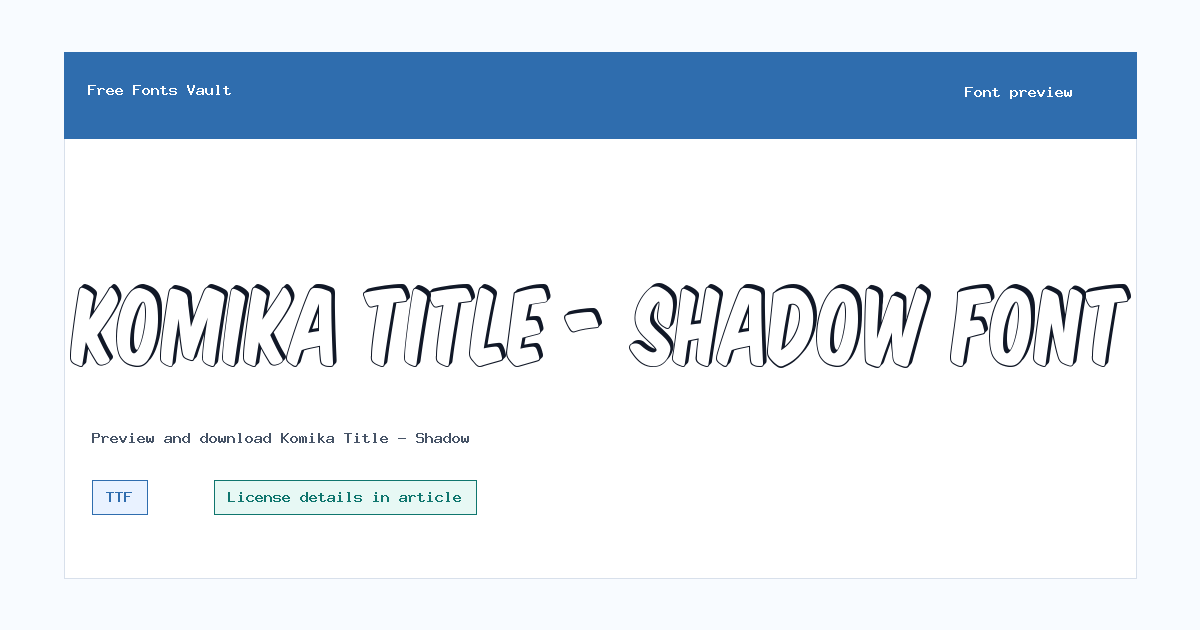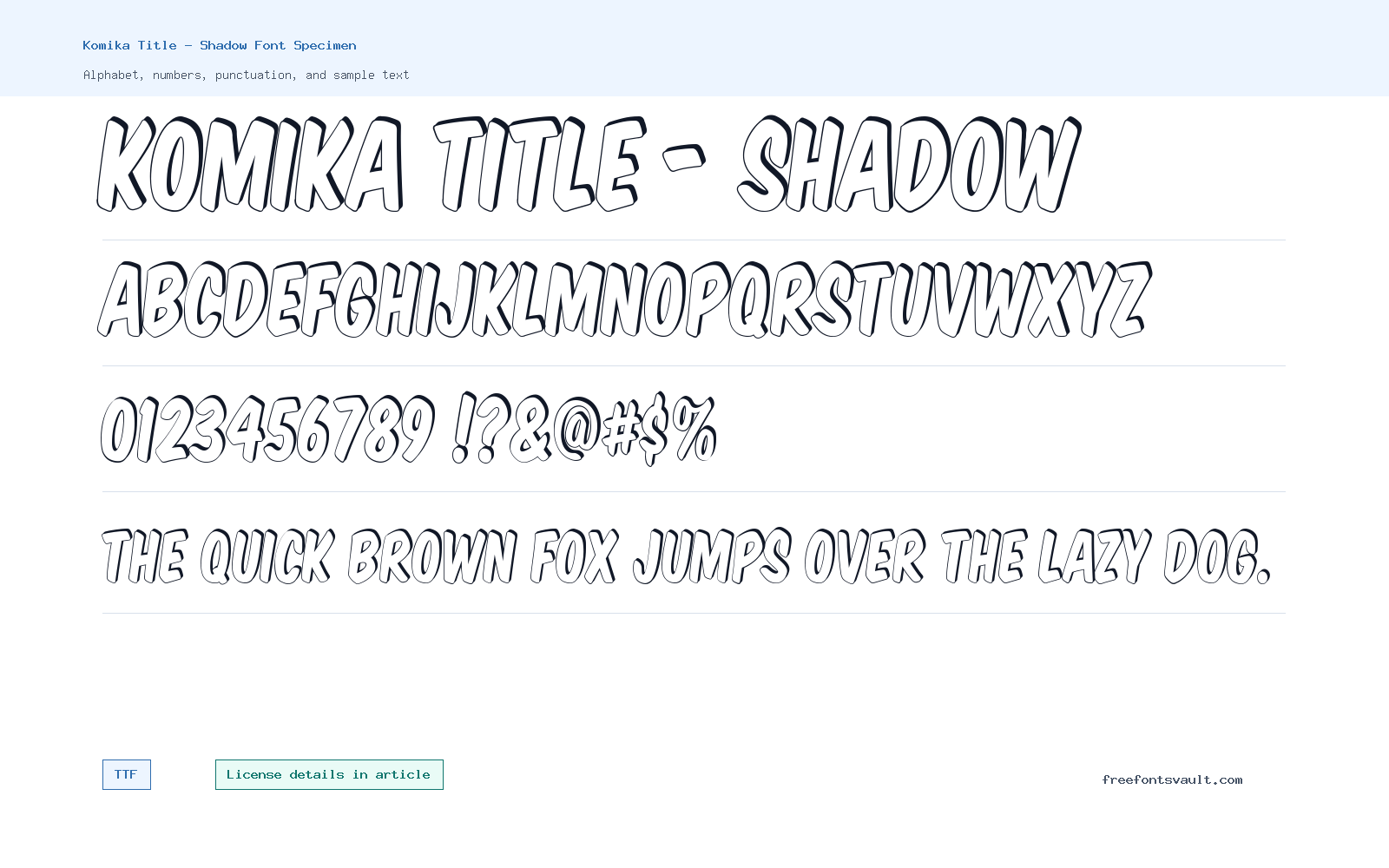
Komika Title - Shadow
Komika Title - Shadow Font
Komika Title – Shadow font.
Komika Title – Shadow is a comic-style display font made for loud, playful headings. Its shadowed title look gives words an instant poster or speech-bubble energy, so it works best when the text is short and the layout has enough room.
About Komika Title – Shadow
Use this font when a project needs a fun comic-book heading, cartoon title, kids activity graphic, party poster, sticker, gaming card, or bold announcement. The shadow effect adds personality, but it also means small sizes can get busy quickly. Preview your exact text and check whether the shadow stays readable on your chosen background.
For a cleaner final layout, keep Komika Title – Shadow for the headline and use a simple sans serif for the supporting lines. That combination lets the title feel expressive while details such as dates, prices, instructions, and descriptions stay easy to read.
It also helps to test numbers, punctuation, and mixed-case words before final export. Comic title fonts often look strongest in one or two punchy words, while long sentences can make the shadow effect compete with the message. Keep the surrounding colors simple when the headline itself is doing the visual work.
• Comic-style display font with a shadowed title effect
• Credited to WolfBainX and Apostrophe
• Best for short, energetic headlines rather than paragraph text
• Comic titles, posters, stickers, kids graphics, and playful headings
• Cartoon thumbnails, party invitations, game graphics, and announcements
• Large text where the shadow effect can stay crisp and readable
Try uppercase words, short phrases, and the final background color in the preview. If the shadow becomes too dense, increase the size, add spacing, or simplify the surrounding design.
What kind of font is Komika Title – Shadow?
It is a comic-style display font with a shadowed title look, best used for short headings and playful graphics.
Who designed Komika Title – Shadow?
The designer credit is listed as WolfBainX and Apostrophe.
What should I pair it with?
Pair it with a plain sans serif for body text and details, then keep Komika Title – Shadow for the main title or callout.